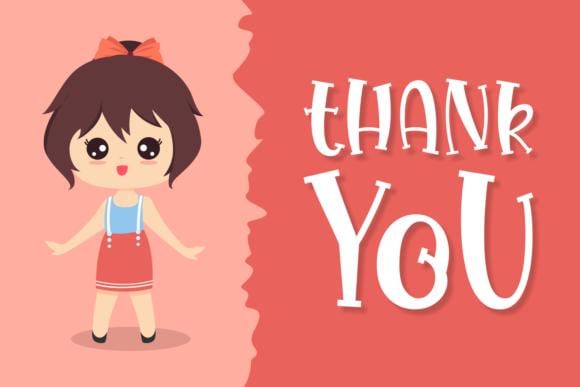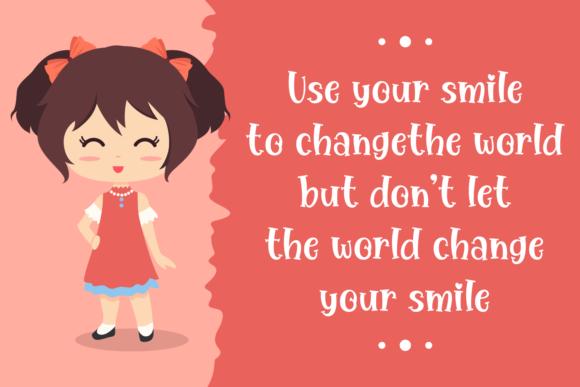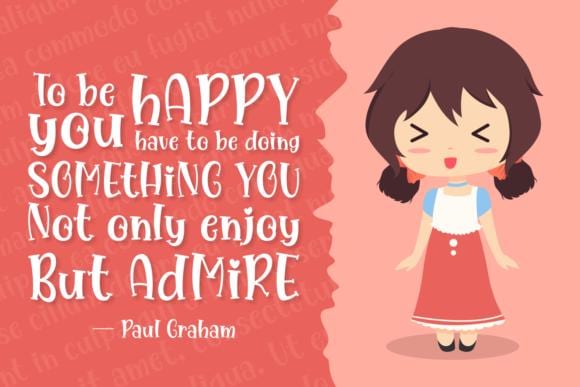
The Wise Love Font
The Wise Love is a quirky and informal serif font. Whether you're using it for crafting, digital designing, presentations, or greeting card making, it's perfect!